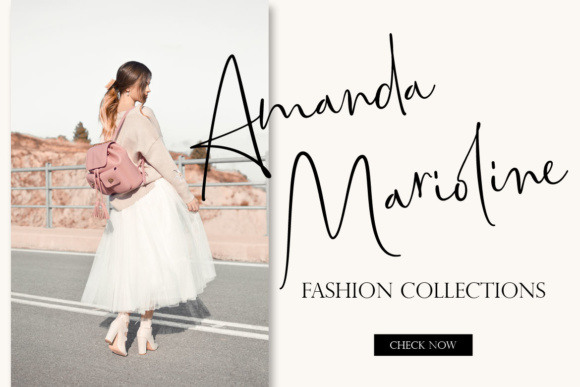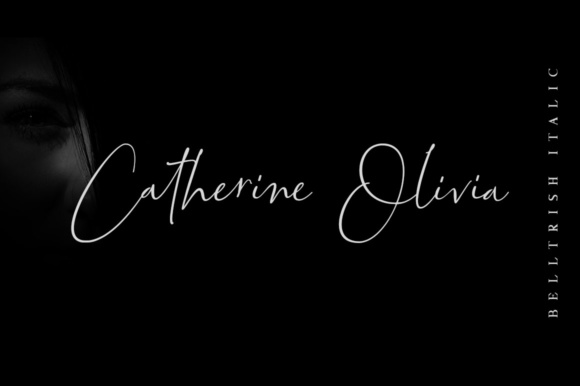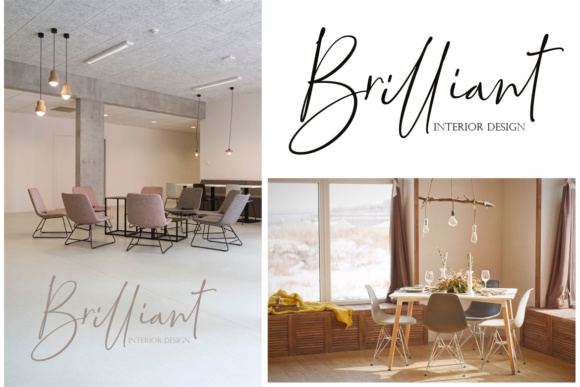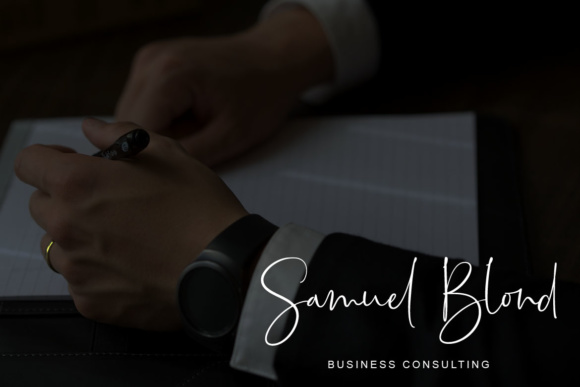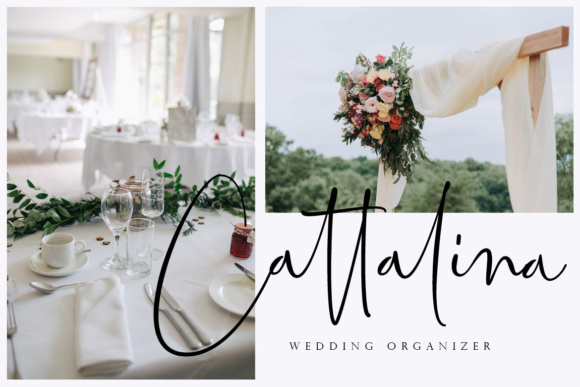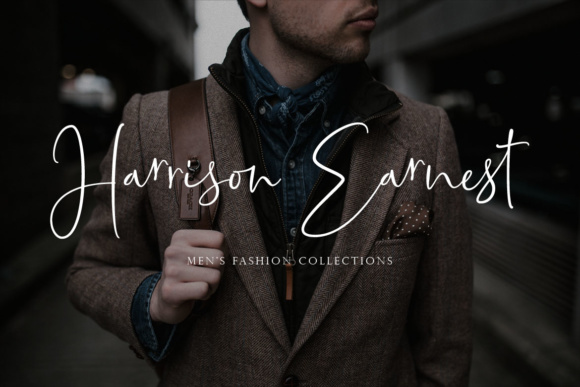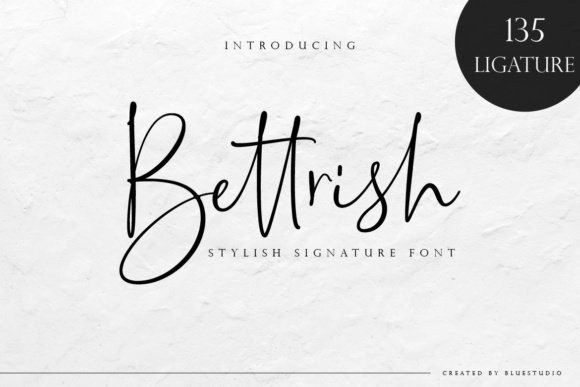
Discovering the Perfect Font: A Designer’s Dilemma
Have you ever been stuck on a design project, scrolling through font options, and feeling like you’re searching for a needle in a haystack? You know, that moment when you’re trying to convey a specific message or atmosphere through your design, but the right font seems to be elusive. We’ve all been there, and it’s a frustrating experience that can halt even the most creative projects.
That’s why we’re excited to introduce the Bettrish Font, a stylish signature font that offers a beautiful typographic harmony for a variety of design projects. This versatile font is perfect for designers who want to add a touch of elegance and sophistication to their work. With the Bettrish Font, you can create stunning visual effects that elevate your designs and make a lasting impression.
Whether you’re working on a branding project, creating a website, or designing a marketing campaign, the Bettrish Font is a valuable asset that can help you achieve your design goals. Its unique style and versatility make it a must-have for any designer looking to take their work to the next level.
Bettrish Font Key Features
- Font Style: Script Font
- Unique Characteristics: Elegant and modern script font, ideal for titles, logos, and invitations
- Language Support: Multilingual support for over 200 languages, including Latin, Cyrillic, and Greek alphabets
Bettrish Font Review
I’ve had the chance to work with Bettrish Font, and here’s my honest take on it.
- Unique aesthetic: Bettrish Font offers a distinctive, hand-drawn feel that can add a touch of personality to any design project.
- Good legibility: The font is relatively easy to read, making it suitable for body text and other content where readability is crucial.
- Fun for creative projects: Bettrish Font is a great choice for projects that require a playful, whimsical feel, such as children’s books, advertisements, or social media graphics.
- Limited versatility: While Bettrish Font excels in certain niches, it may not be the best choice for more formal or professional projects, such as business reports or academic papers.
- Some letterforms can be awkward: A few of the font’s letterforms, such as the ‘k’ and ‘q’, can be somewhat tricky to read or awkwardly shaped.
Bettrish Font is a fun, creative choice for designers looking to add a touch of personality to their work. While it may not be suitable for every project, it’s a great option for designers who want to push the boundaries of traditional typography and explore new, unique aesthetics.
The Bettrish Font is a modern and elegant script font, making it ideal for:
- Fashion and lifestyle marketing
For the best results, pair the Bettrish Font with a clean and simple design to let the font shine.